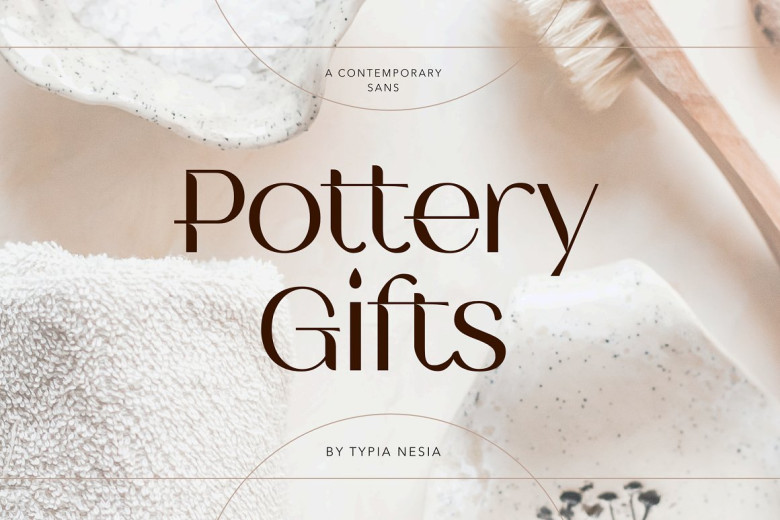
Pottery Gifts Font
Pottery Gifts font is an Elegant Glamour and Modern Sans Serif Expressionist Modern Classy font with several ligatures and alternates that allow it to create stunning typography styles, making this font ideal for many future projects like logos and branding, elegant editorial design, magazine cosmetic brand promotion,
boutique branding designs for blogs, stationery modern design advertising campaigns, card invitations with art quotes/home decor accents or book cover titles for special events; among many other uses.
Pottery Gifts Sans Serif Font